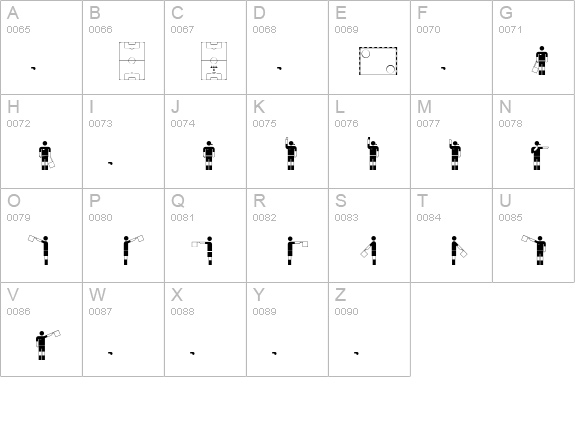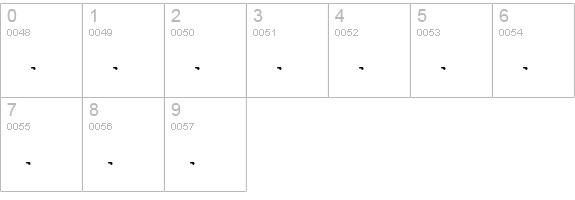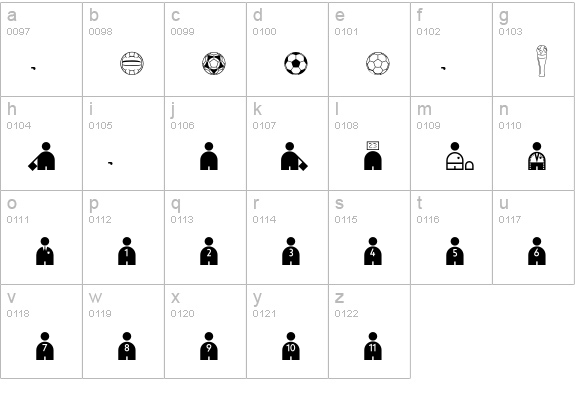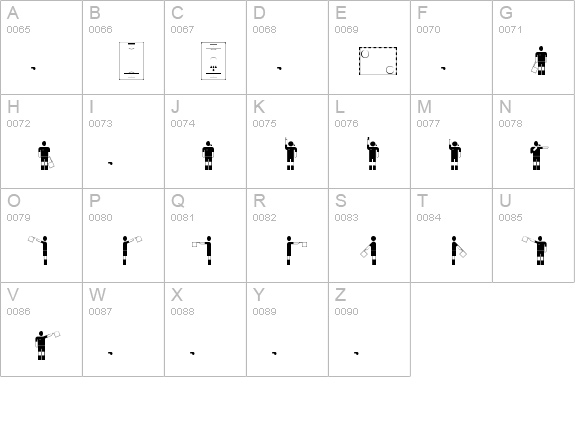
Trivia-Pict Font Details
Introducing Trivia-Pict font, a unique and playful typeface that will add a touch of whimsy to your designs. This font features charming pictograms and illustrations that are perfect for creating eye-catching visuals. Whether you're designing a poster, flyer, or social media graphics, Trivia-Pict font will bring a fun and creative element to your projects. The best part? Trivia-Pict font is available for free download at FontsMarket.com. That's right, you can easily access this delightful font without any cost. So why wait? Add a dash of creativity to your designs with Trivia-Pict font today!